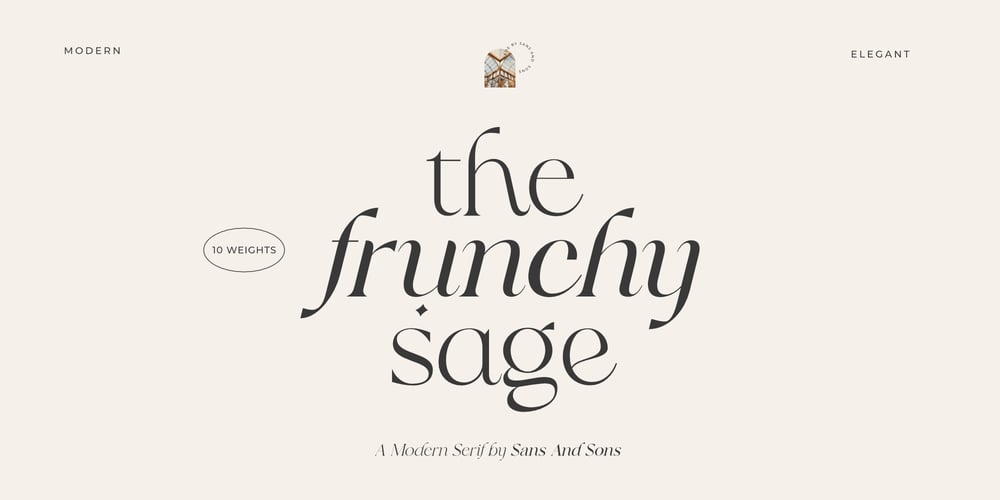
Frunchy Sage Font Family was designed by Angga Suwista and published by Sans And Sons. Frunchy Sage contains 10 styles and family package options. Frunchy Sage, a Modern Stylish Serif Family with Elegant Style.Frunchy Sage is a high contrast typeface so delicate, legible and lend themselves to high end branding, logo designs, product packaging, invitation & masterhead designs.Language Support:All fonts support English, French, Italian, Spanish, Portuguese, German, Swedish, Norwegian, Danish, Dutch, Finnish, Indonesian, Malay, Hungarian, Polish, Turkish, Slovenian.